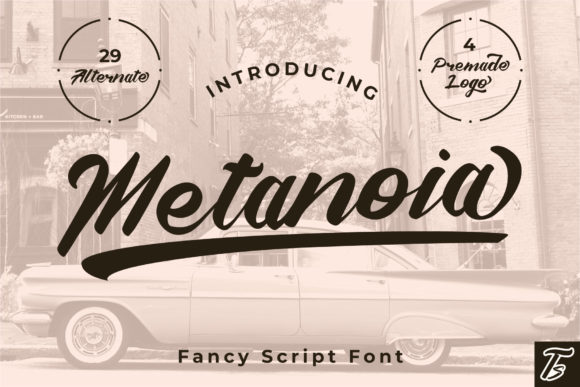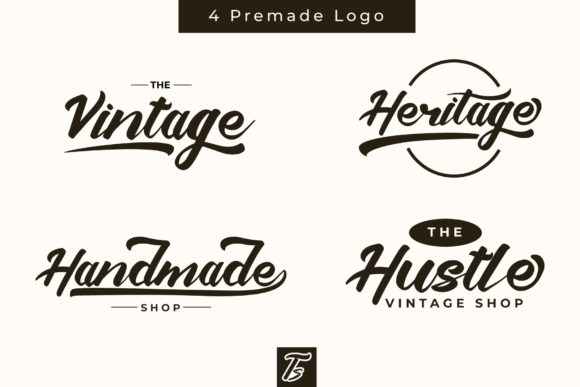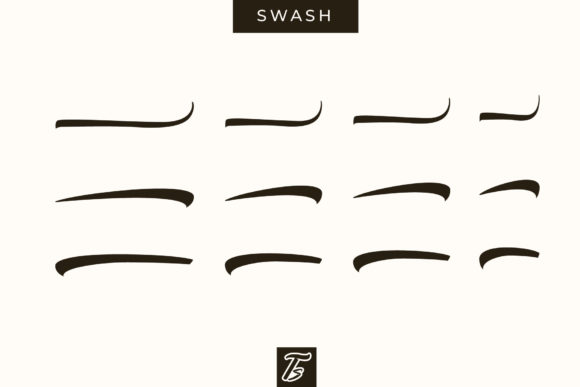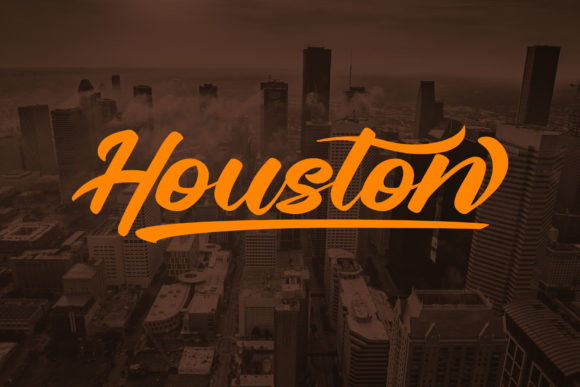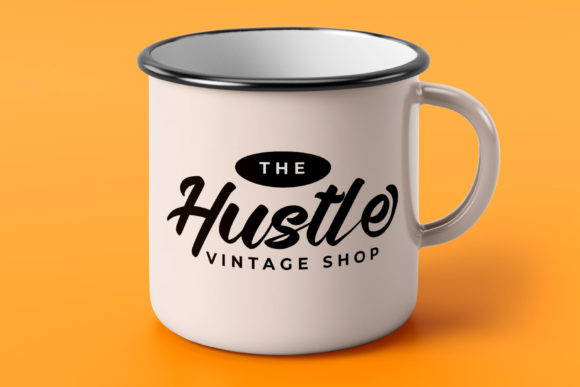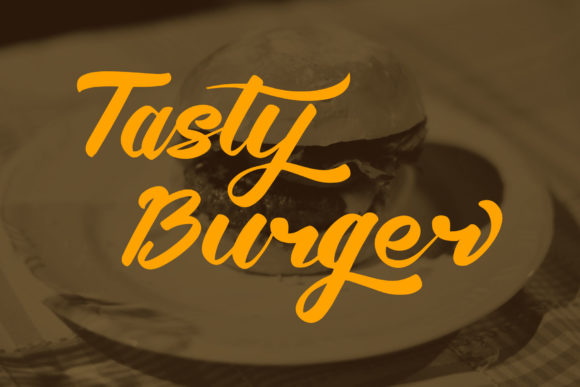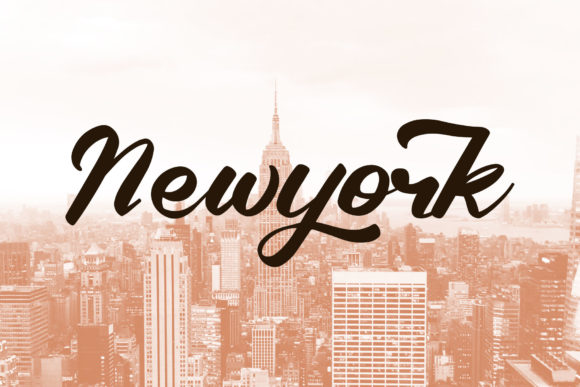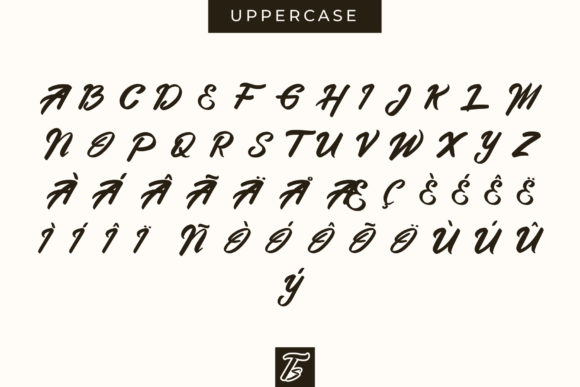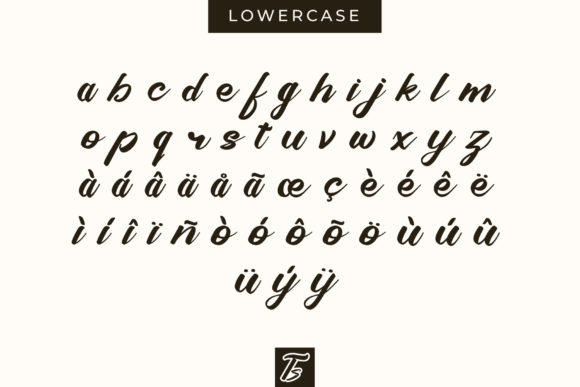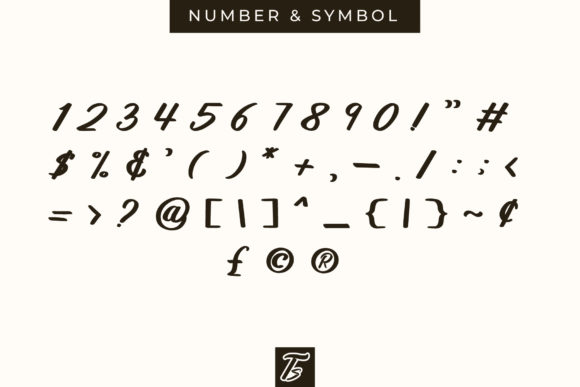
HomeScript FontsMetanoia Font Script Fonts Metanoia Font FacebookXPinterestWhatsApp Metanoia Font Poster 2 Metanoia Font Poster 3 Metanoia Font Poster 4 Metanoia Font Poster 5 Metanoia Font Poster 6 Metanoia Font Poster 7 Metanoia Font Poster 8 Metanoia Font Poster 9 Metanoia Font Poster 10 Metanoia Font Poster 11 About Metanoia Font Metanoia is a stylish and bold script that will add a personal and unique feel to any design idea! DOWNLOAD NOW People also explored Patty LaBelle Font Purple Font Hello Summer Font Halbreno Font Hostine Font Hello August Font Baltism Font Heilyn Khotijah Font 624 0 TagsMetanoia Font Previous articleEinstein FontNext articleDevinda Font LEAVE A REPLY Cancel reply Comment: Please enter your comment! Name:* Please enter your name here Email:* You have entered an incorrect email address! Please enter your email address here Website: Save my name, email, and website in this browser for the next time I comment. Personal Use Free BD Geminis Personal Use Free Read more about this font Vembazax Rm Personal Use Free Read more about this font Alista Font Personal Use Free Read more about this font Sheiloria Personal Use Free Read more about this font BLOG Transform Your Website: Elevate Your Typography with 7 Best Web Font Generators Are you ready to transform your website's typography from ordinary to extraordinary? Great! Today, we're diving into the world of web font generators, which... Best Fonts for T-Shirt Design – Top 2025 Picks Free Fonts Risk: Why Free Fonts Can Be Dangerous for Designers Fonts That Capture the Spirit of New York City